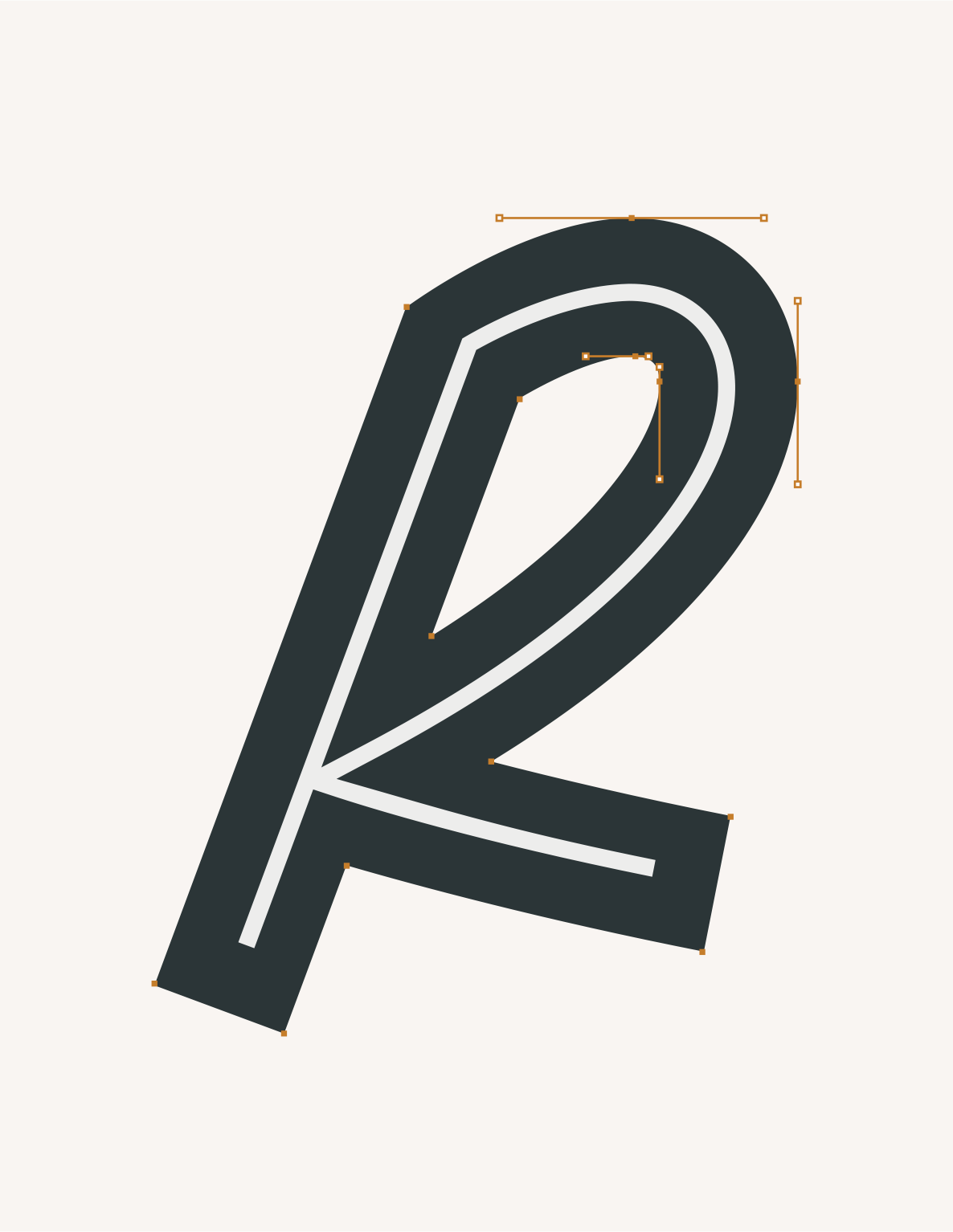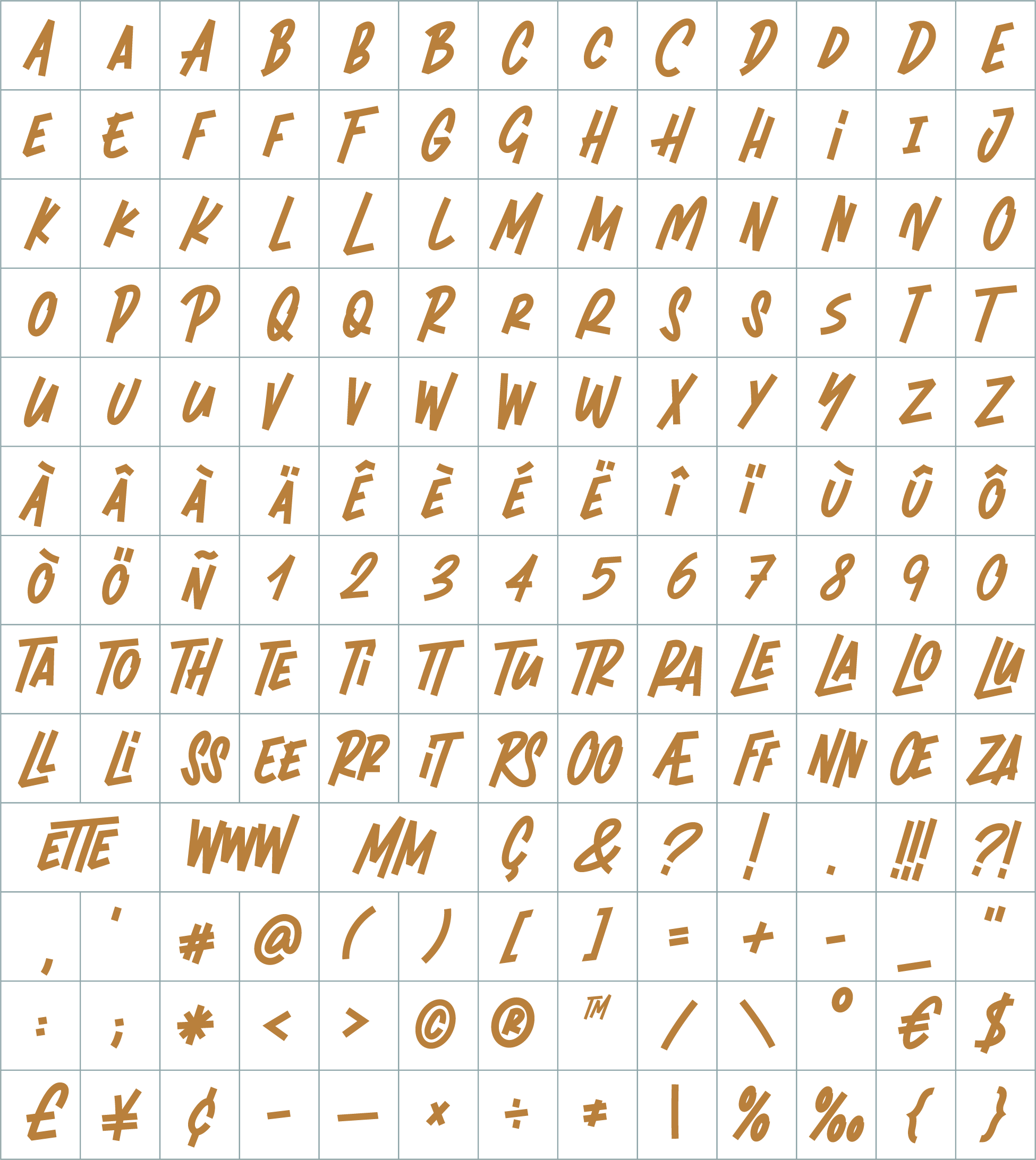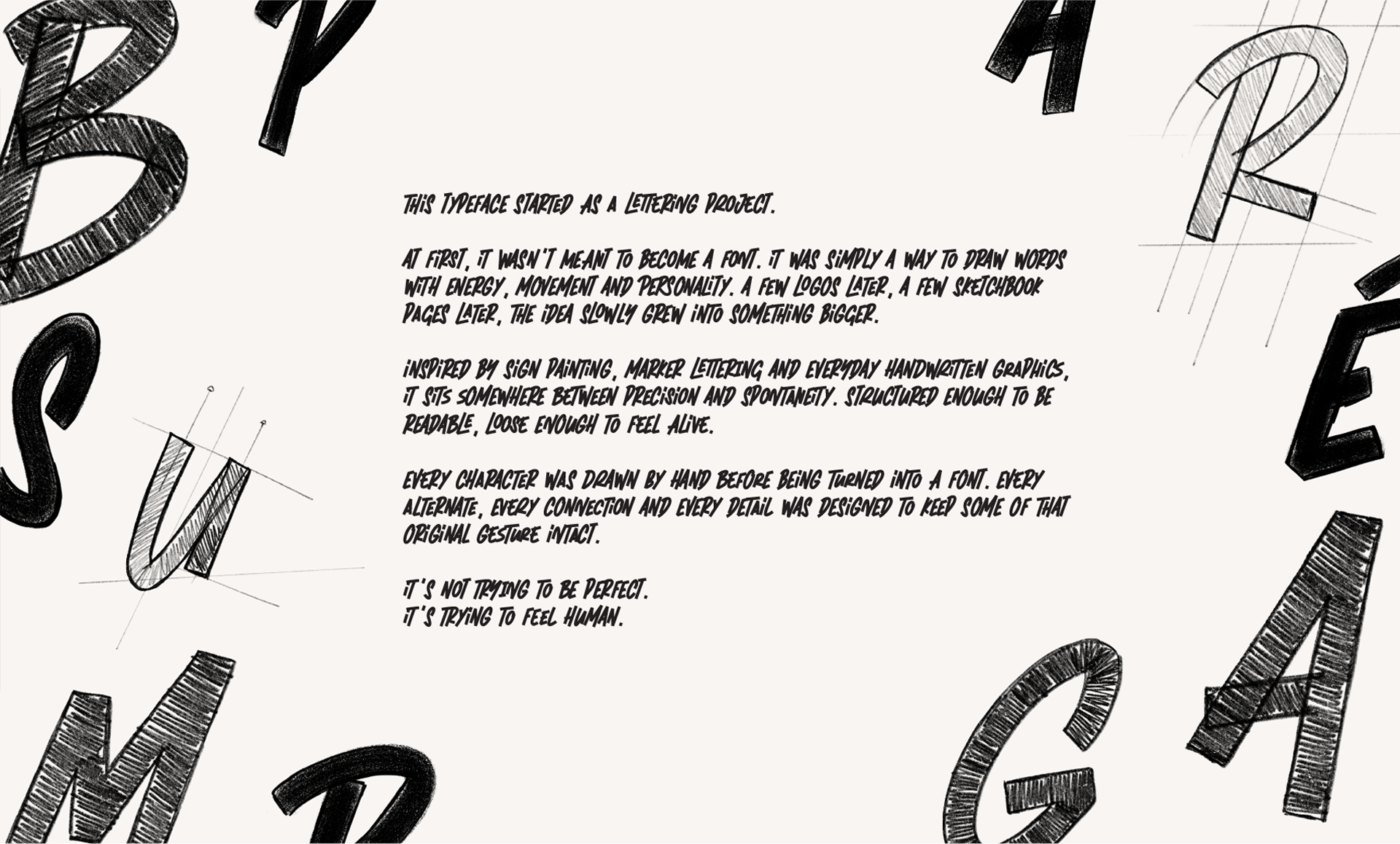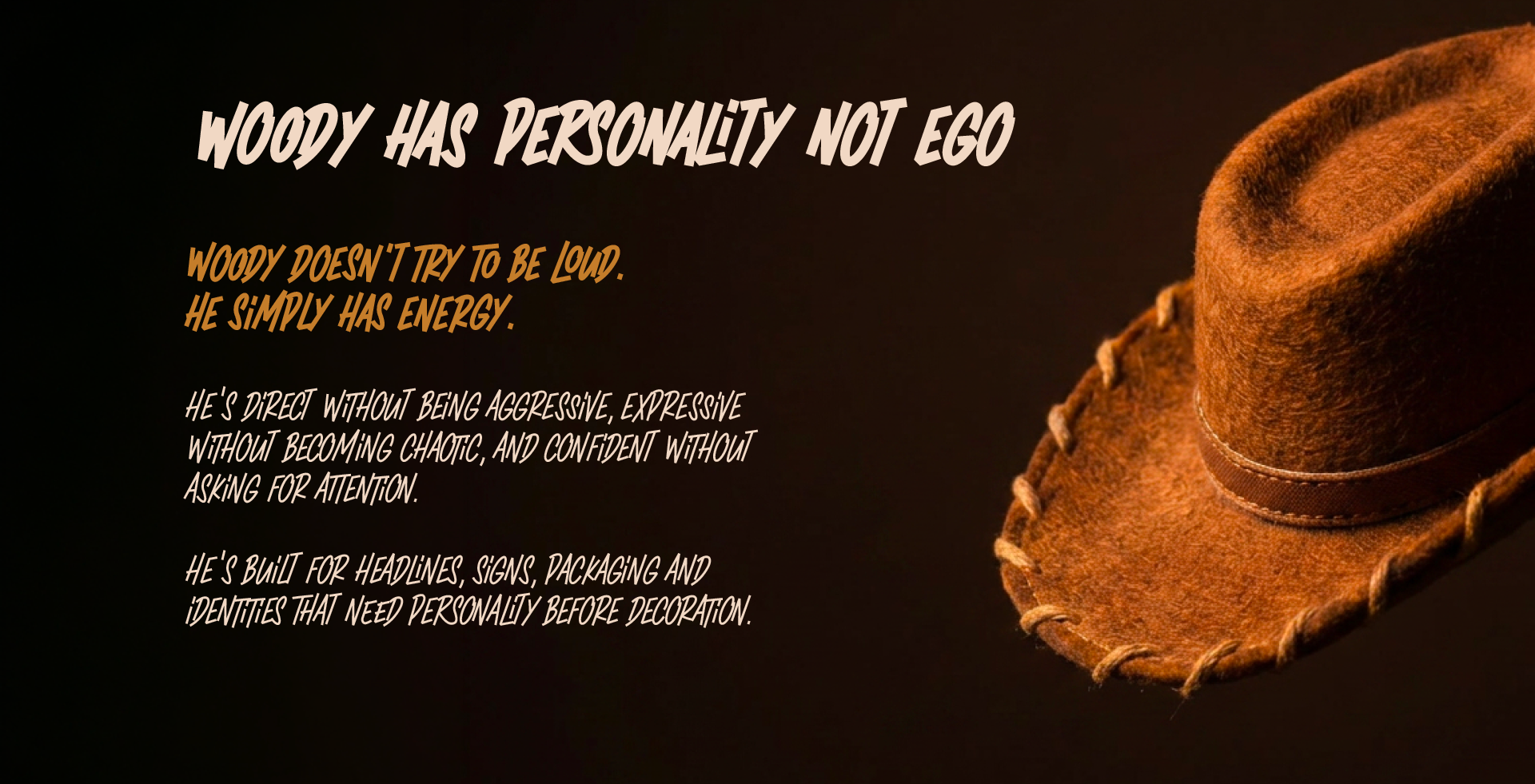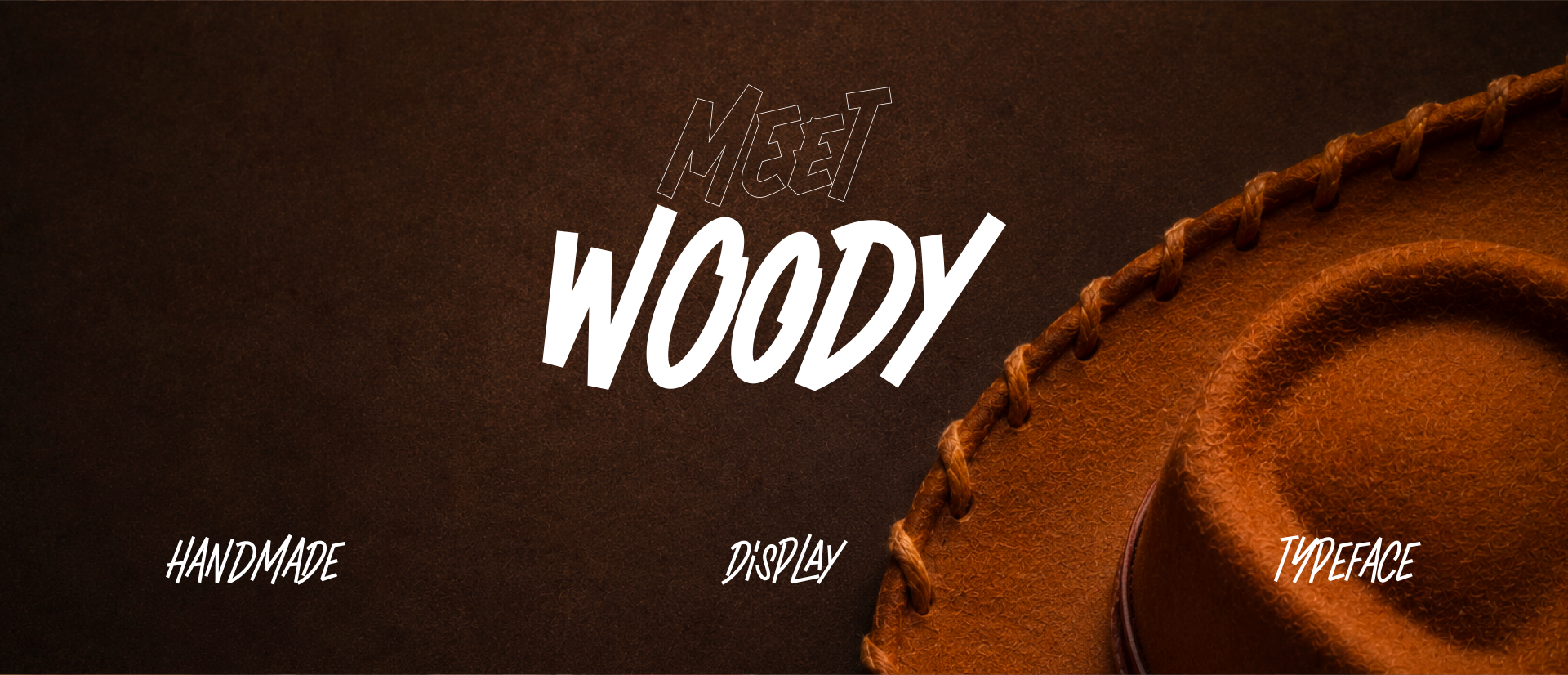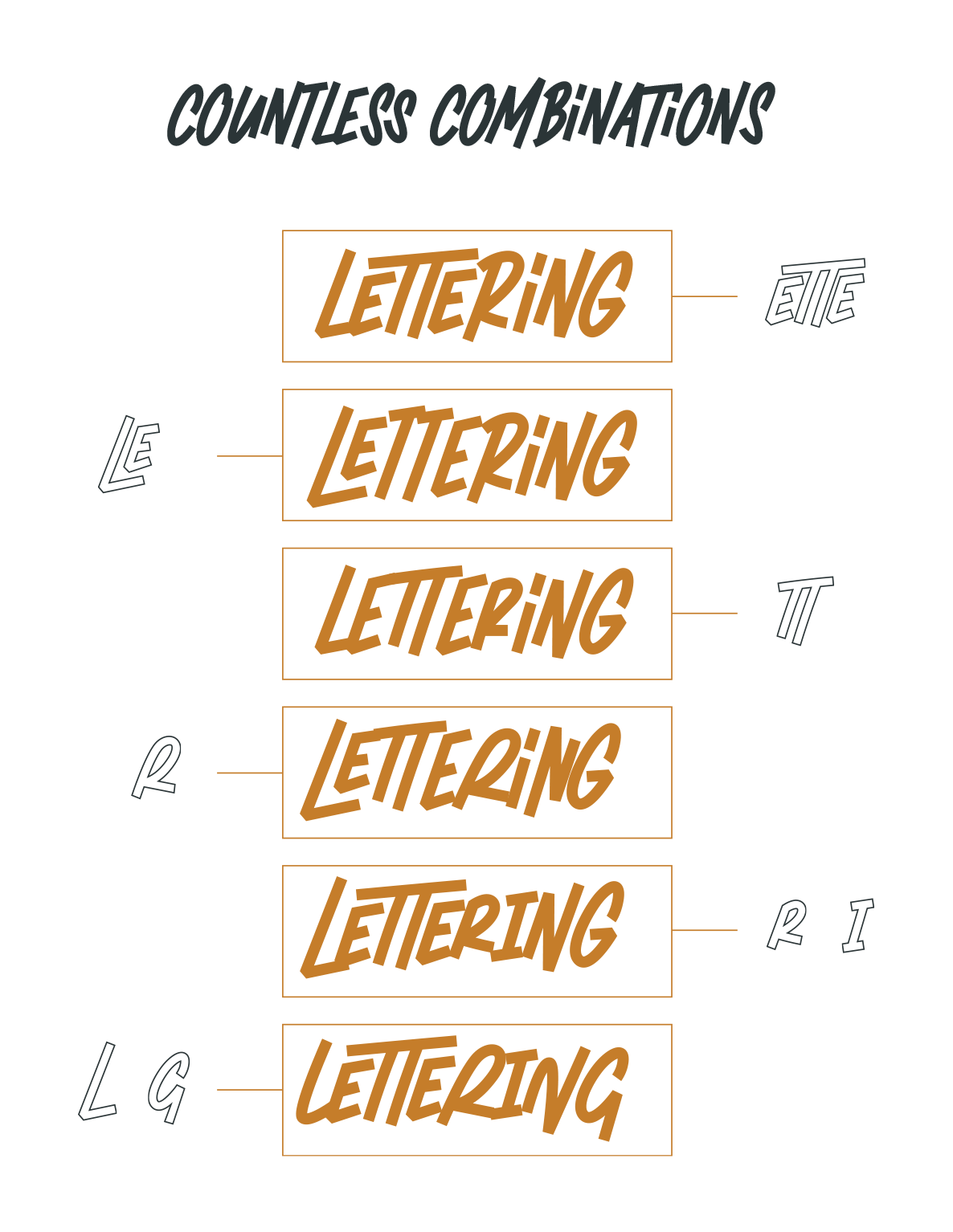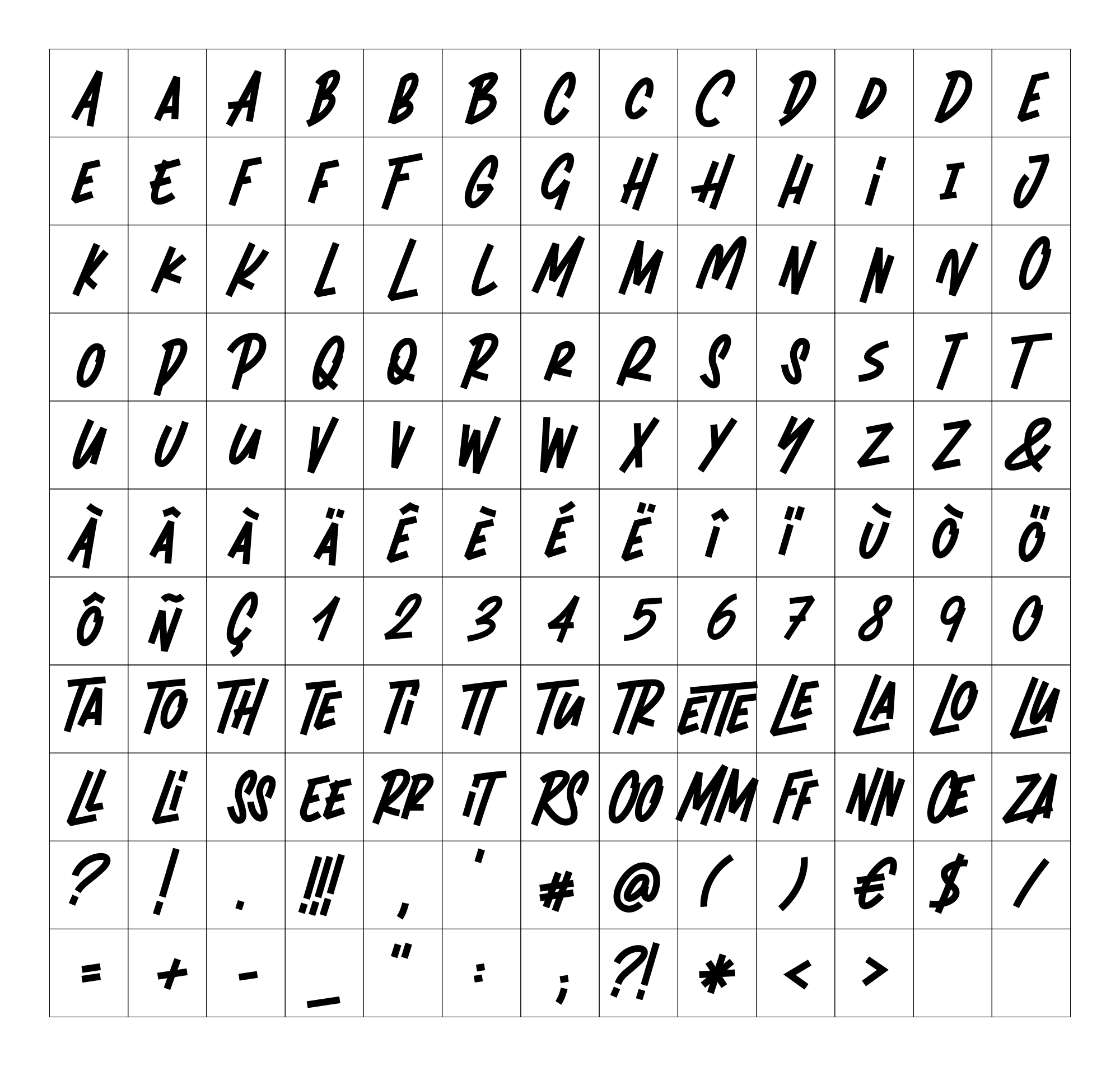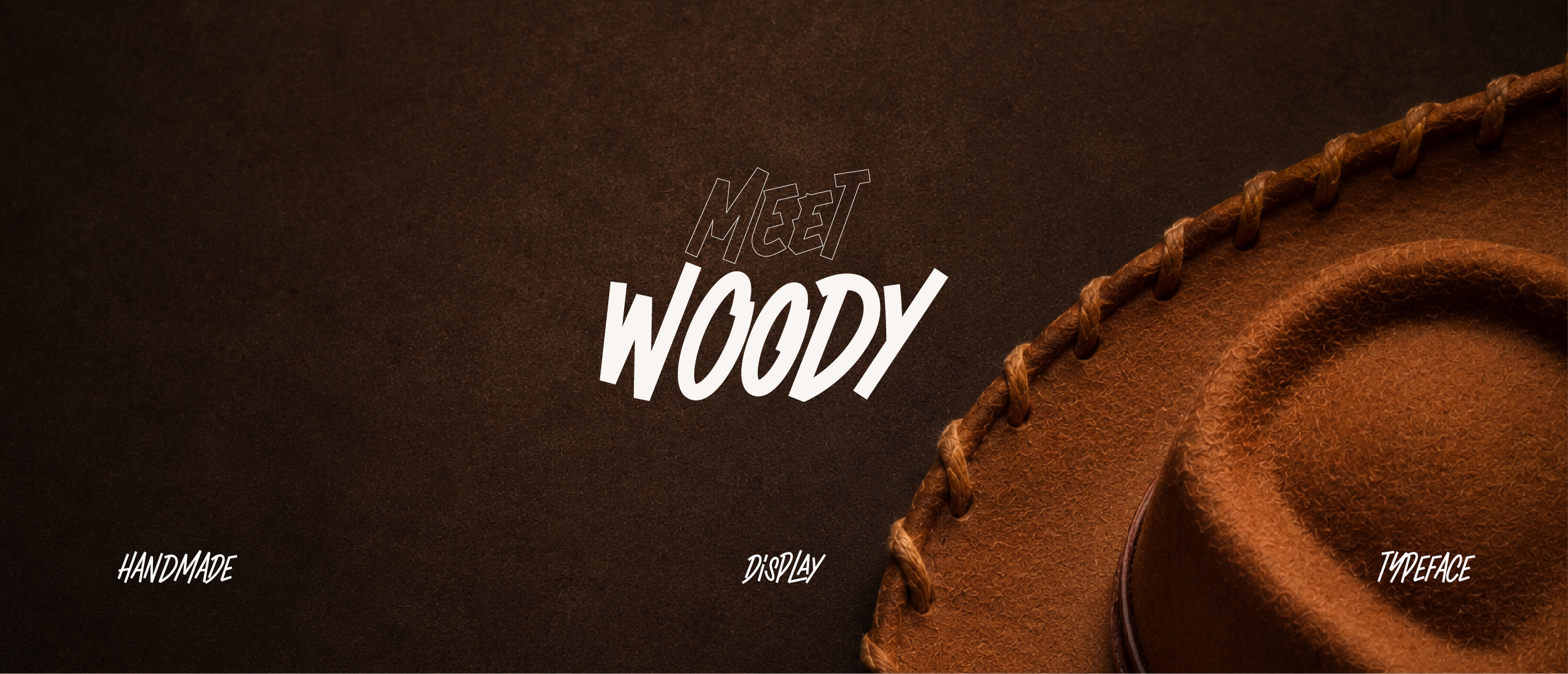
At first, it wasn’t meant to become a font. It was simply a way to draw words with energy, movement and personality. A few logos later, a few sketchbook pages later, the idea slowly grew into something bigger.
Inspired by sign painting, marker lettering and everyday handwritten graphics, it sits somewhere between precision and spontaneity. Structured enough to be readable, loose enough to feel alive.
Every character was draw by hand before being turned into a fond. Every alternate, every connection and every detail was design to keep some of that original gesture intact.
He’s direct without being aggressive, expressive without becoming chaotic, and confident without asking for attention.
He’s built for headlines, signs, packaging and identities that need personality before decoration.